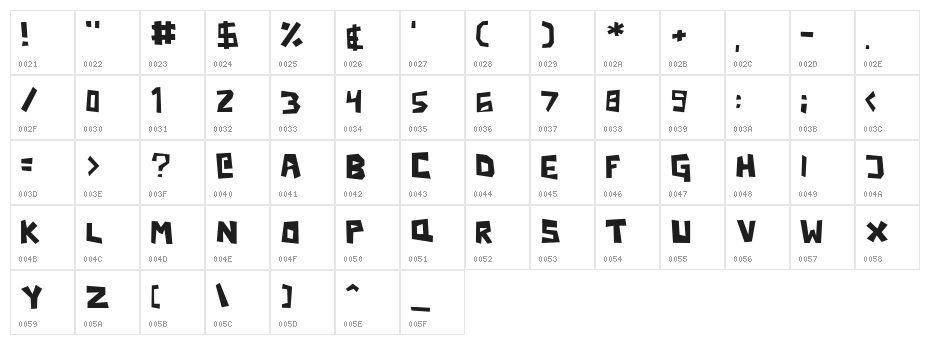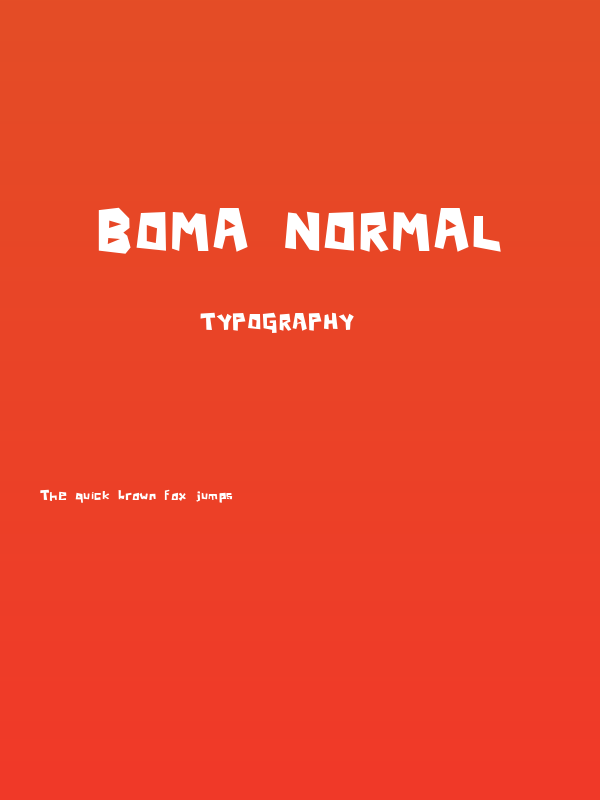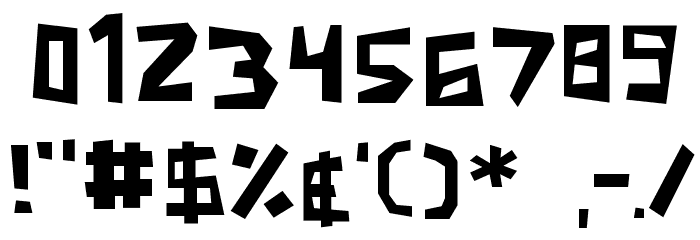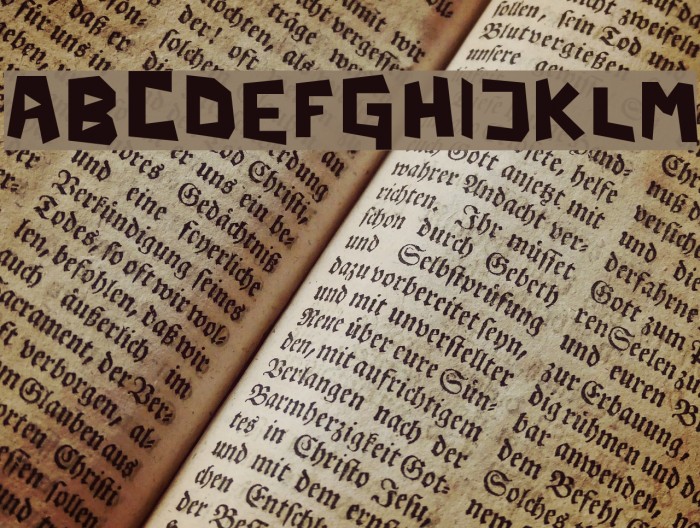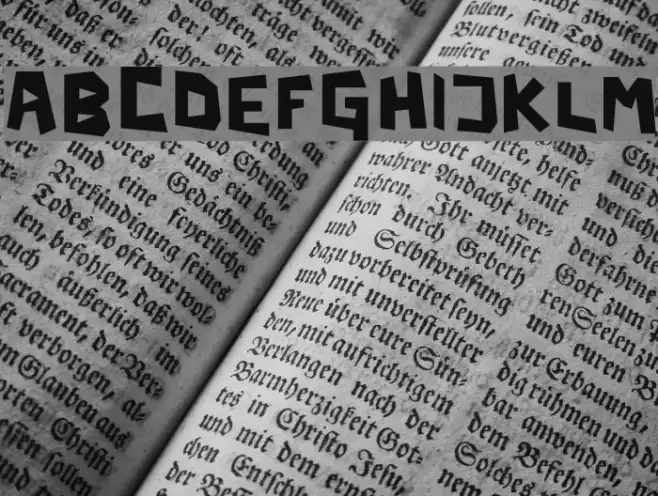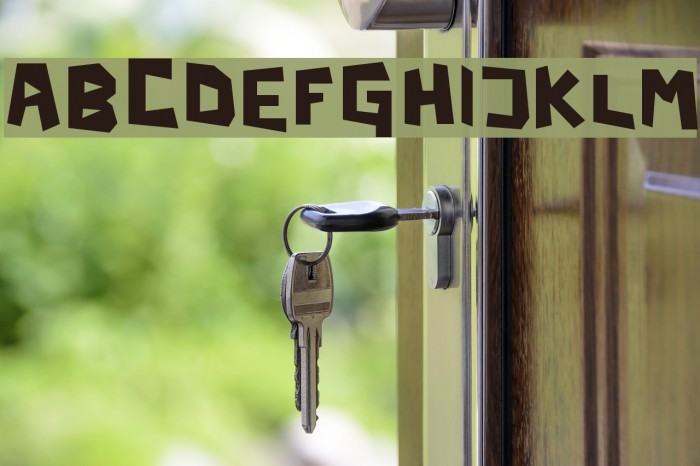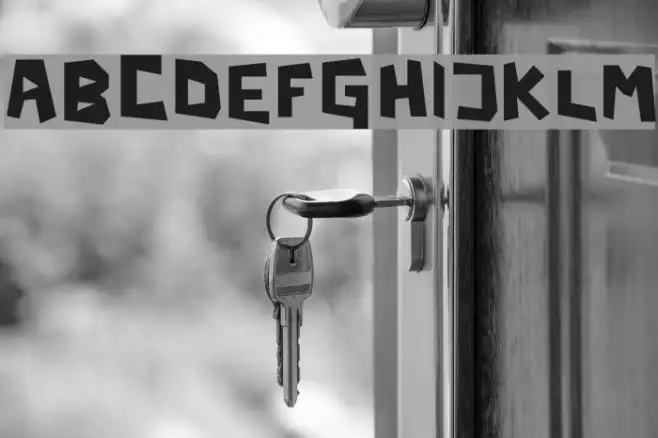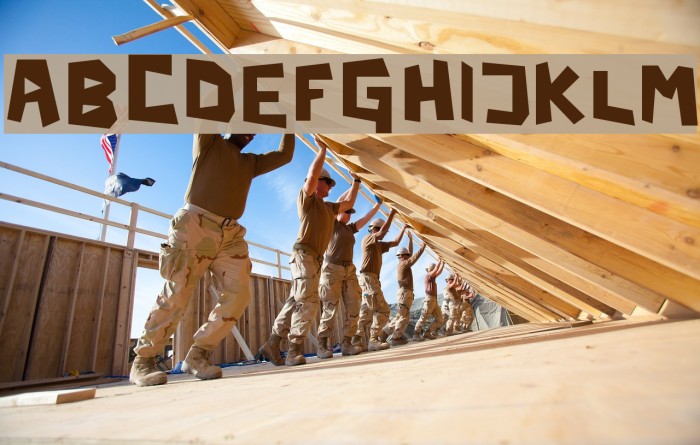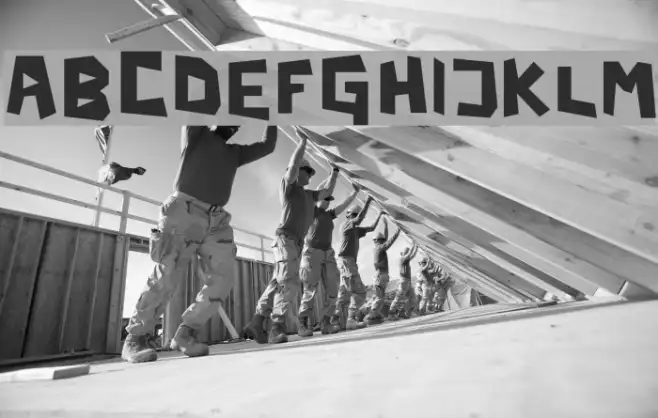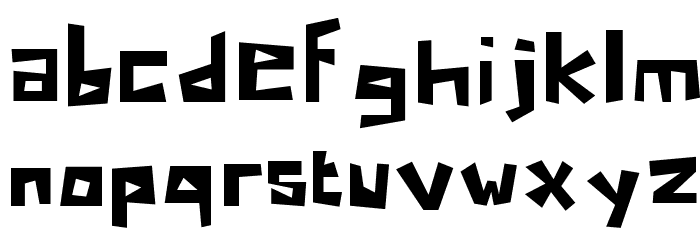
Boma Normal Font
Boma Normal Description
This font features a bold and geometric style with angular, sharp edges that give it a distinctive and modern appearance. The characters are constructed with a blocky, almost stencil-like design, creating a sense of strength and impact. The uppercase and lowercase letters maintain a consistent width, contributing to a uniform look across the typeface. Numbers and special characters follow the same angular theme, ensuring cohesion throughout. The font's unique style makes it suitable for projects that require a strong visual presence.
| Proposed Projects | Ideal for posters, branding, headlines, and any design needing a bold statement. |